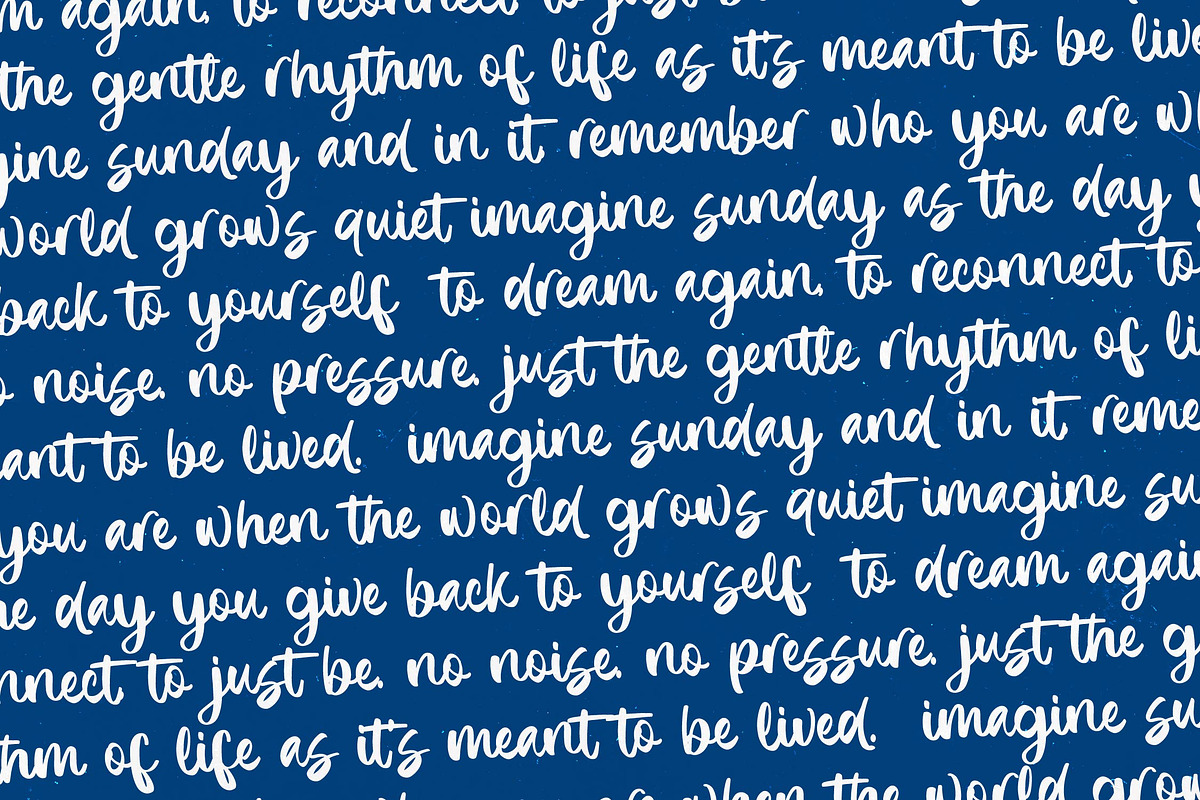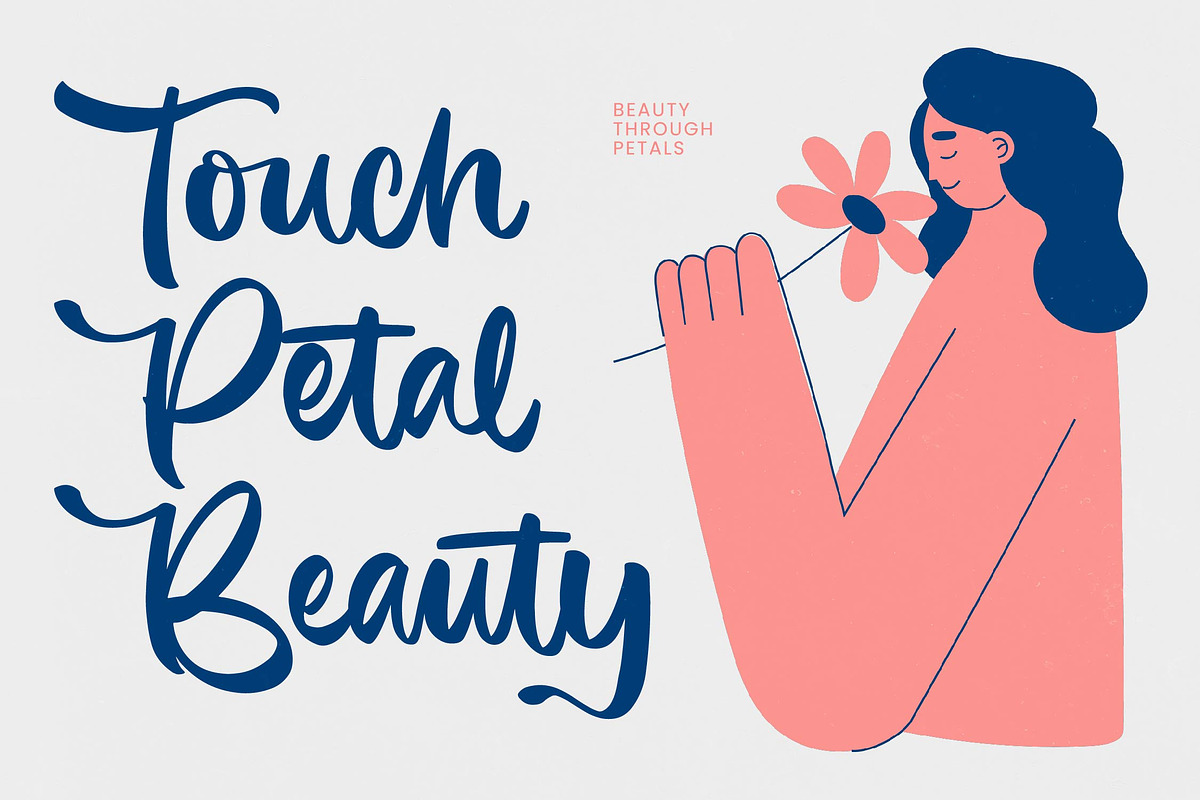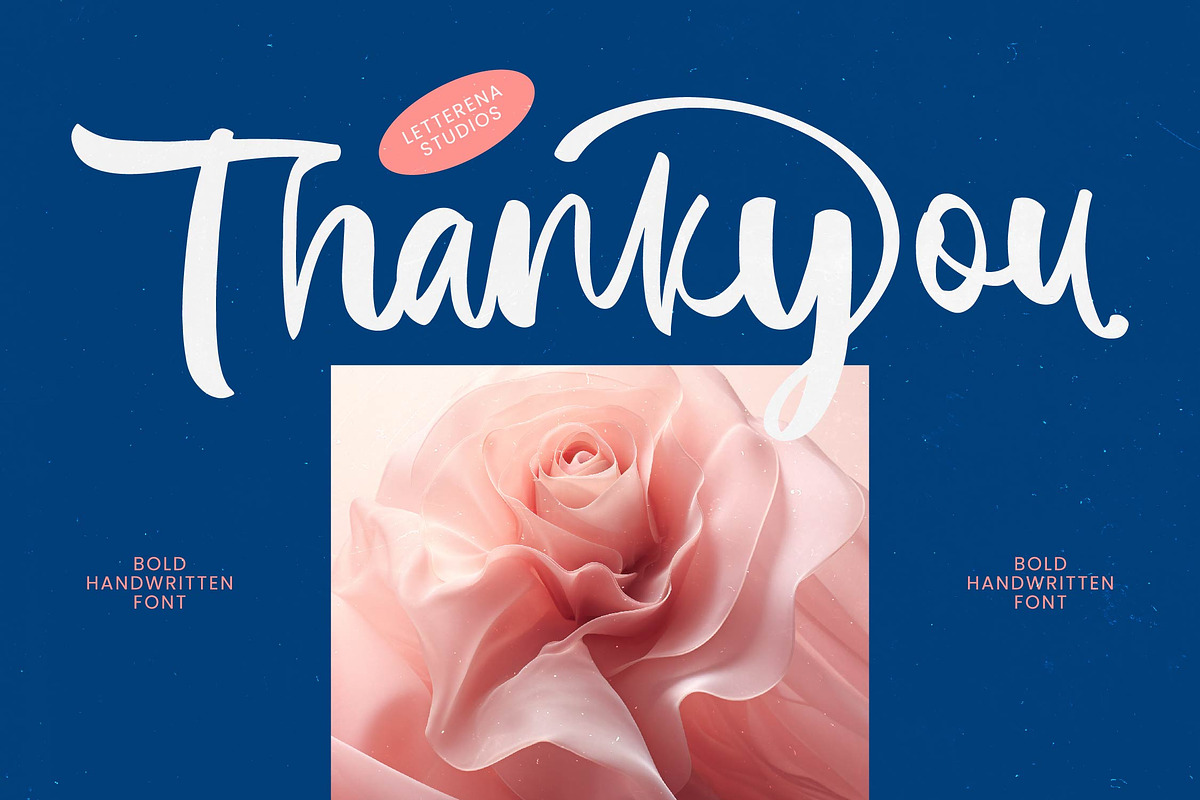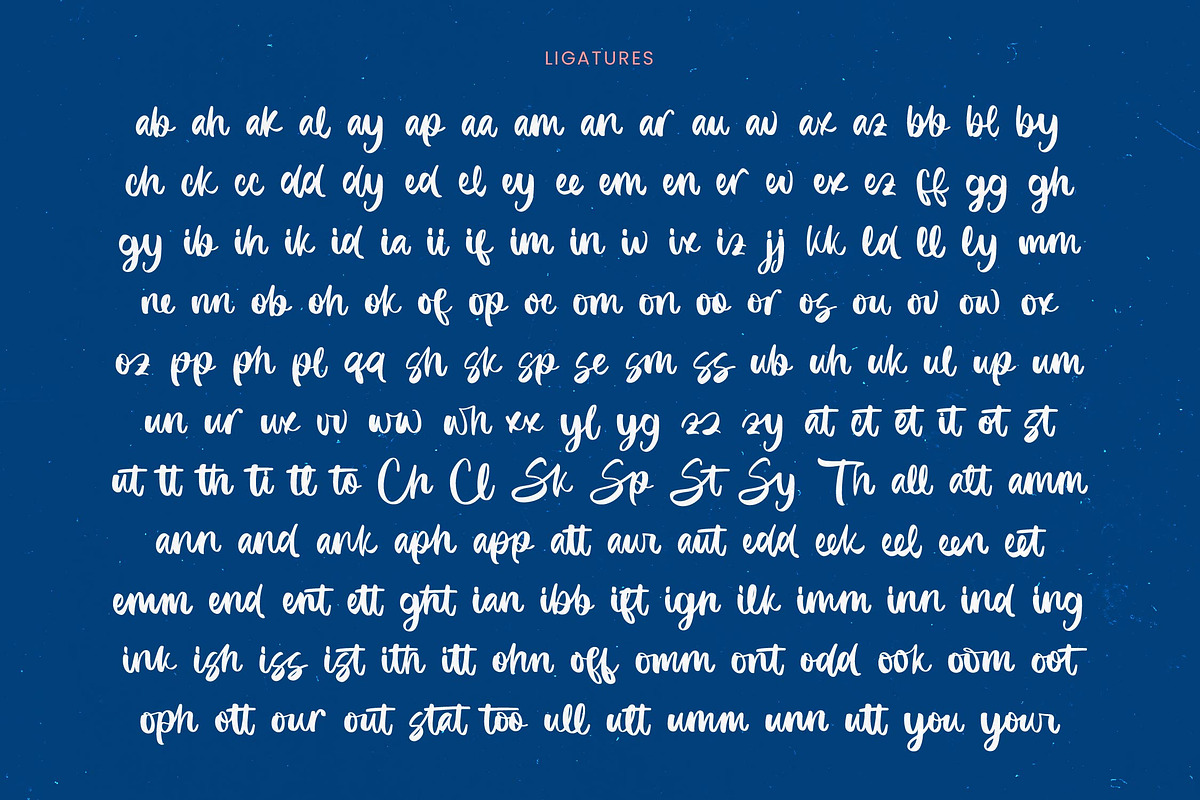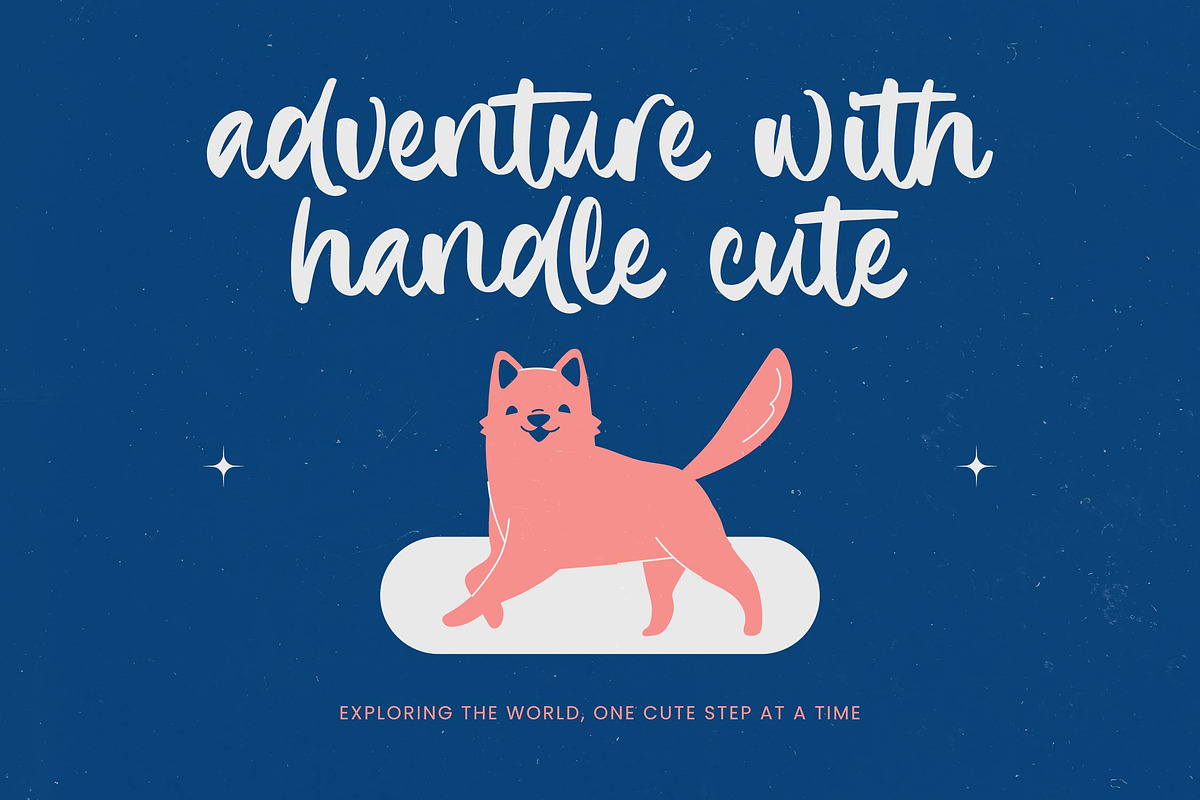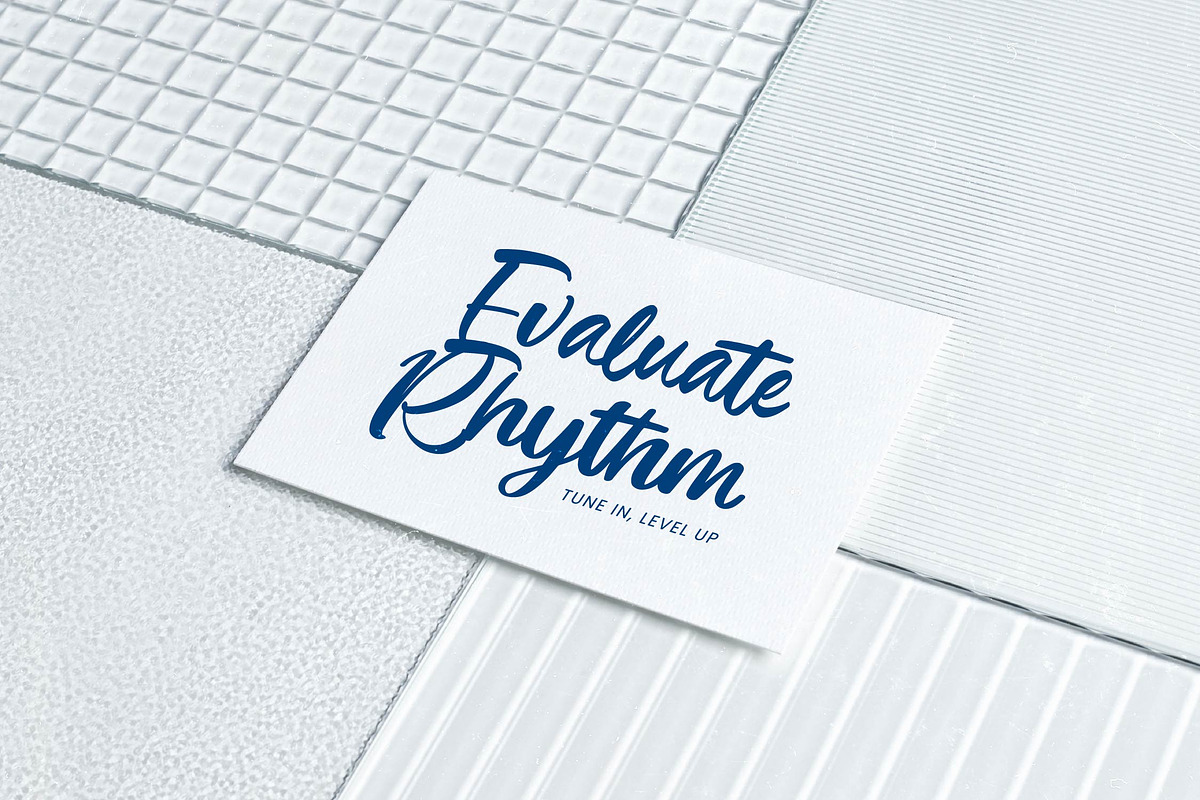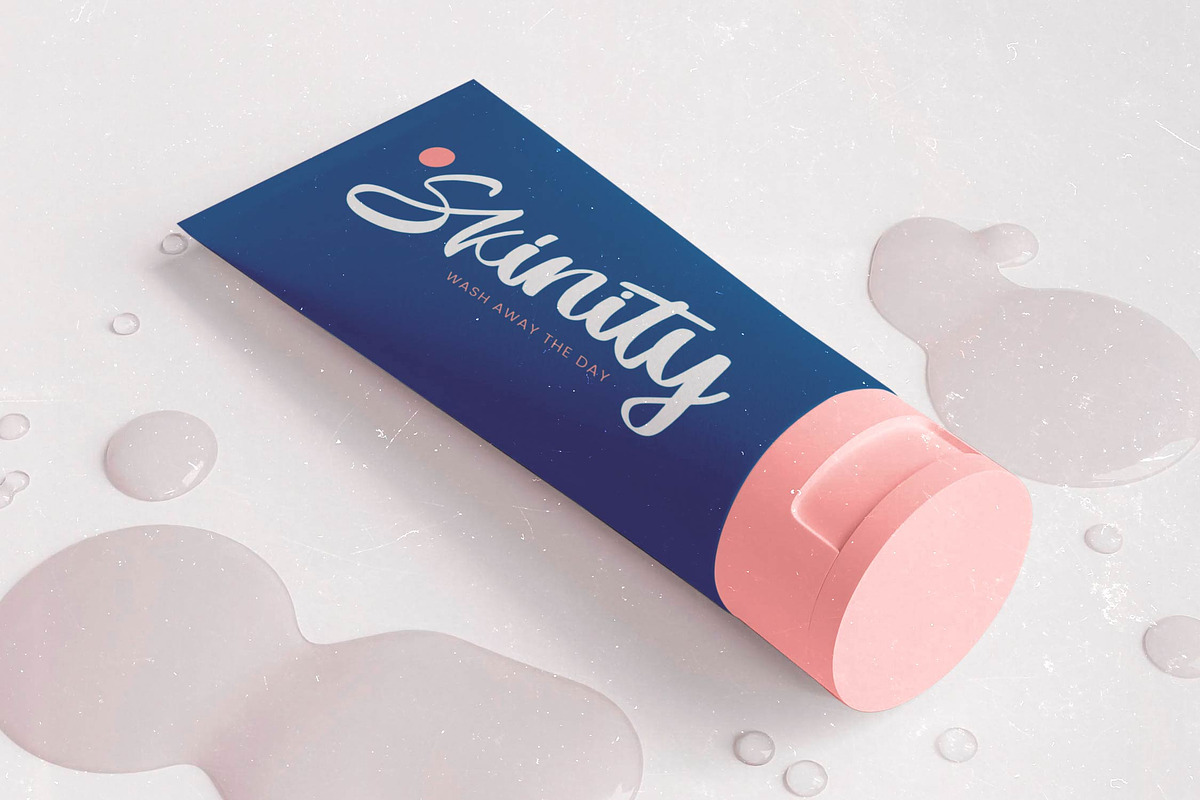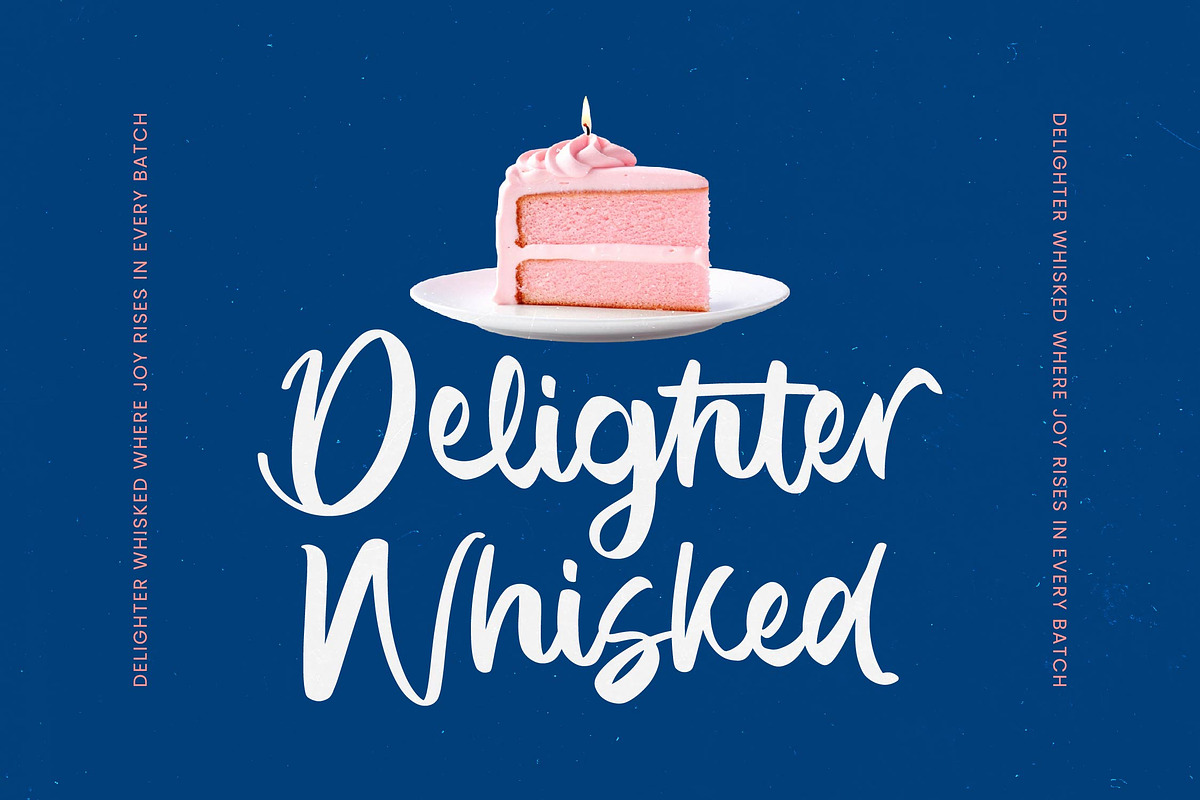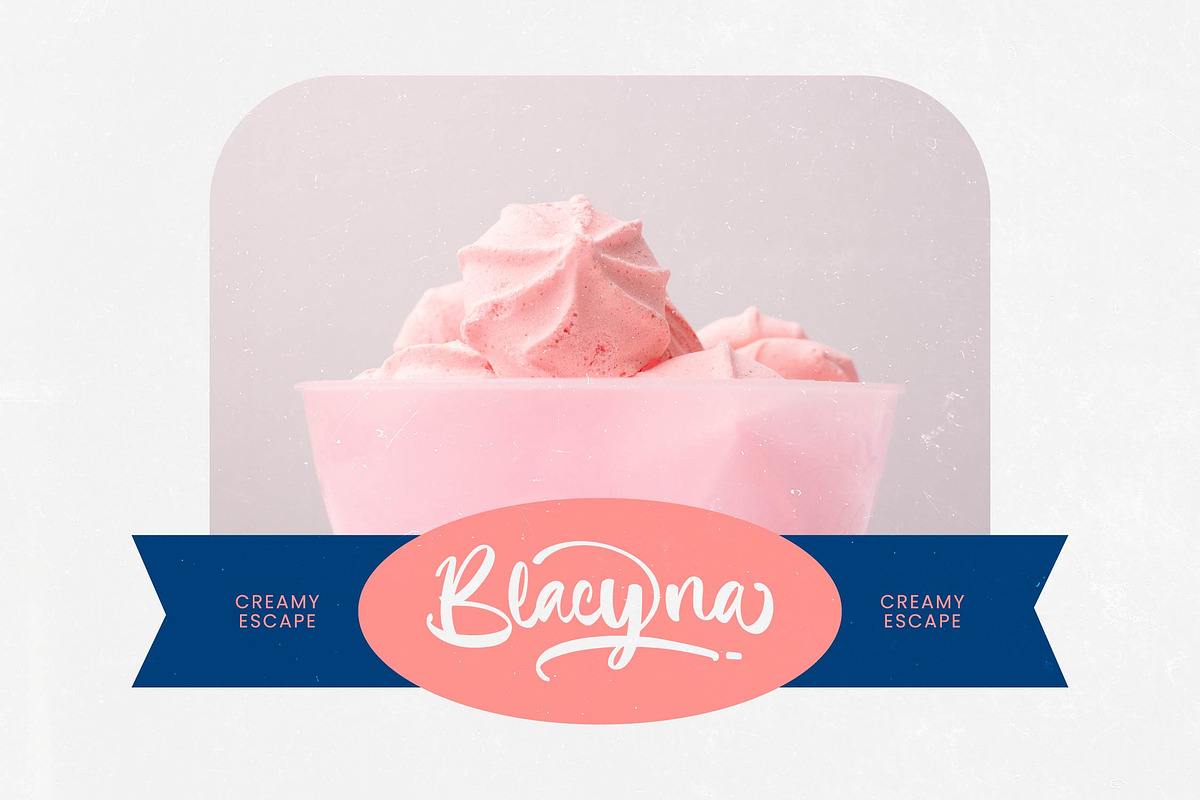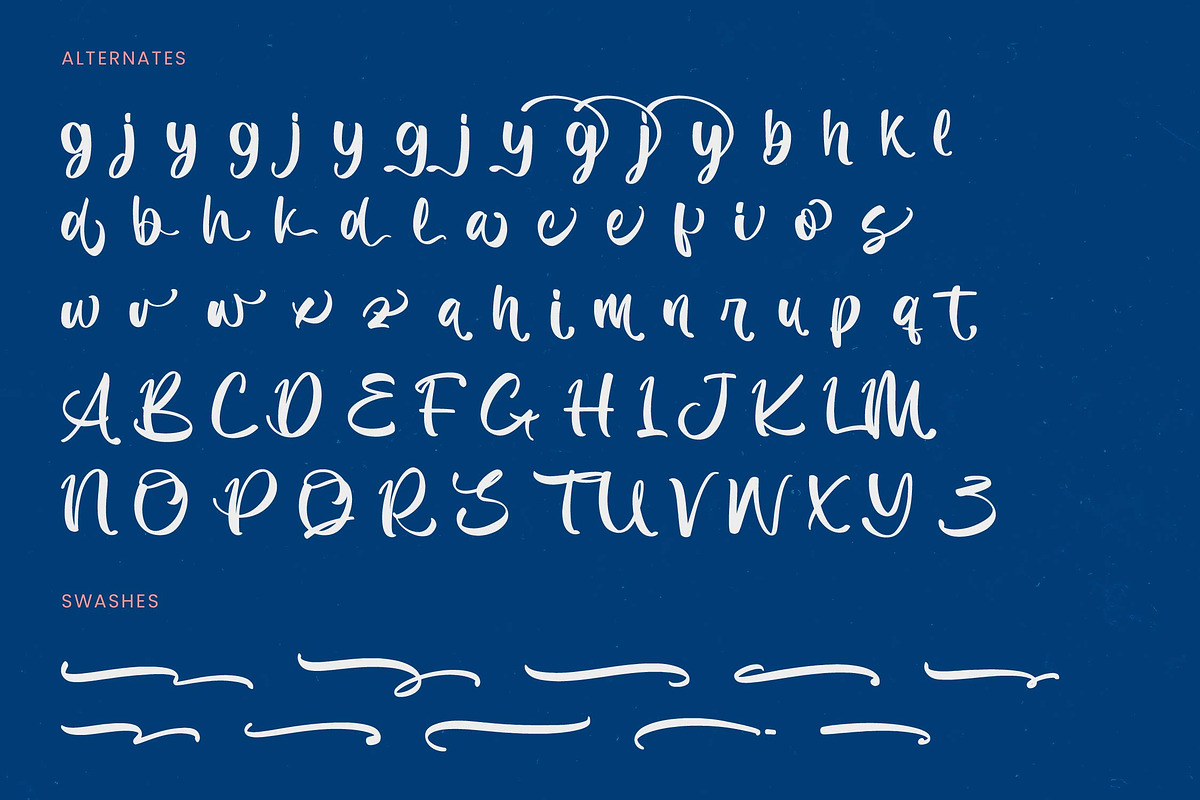
Imagine Sunday Bold Handwritten Font
Imagine Sunday - Bold Handwritten Font , from Letterena, is a Luxury Script font, suitable for any projects such as: logos, branding projects, homeware designs, product packaging, mugs, quotes, posters, shopping bags, t-shirts, book covers, name card, invitation cards, greeting cards, label, photography, watermark, special events, and all your other luxury and beautiful projects that need a Luxury Script taste.
- 178 Ligature 70 Alternate & 10 Swashes